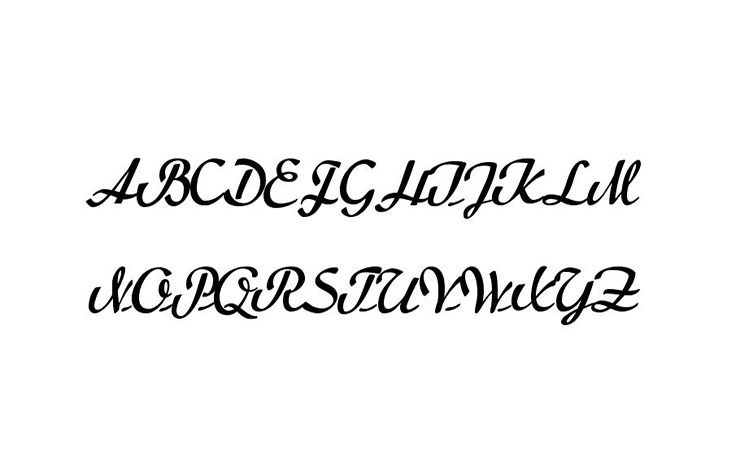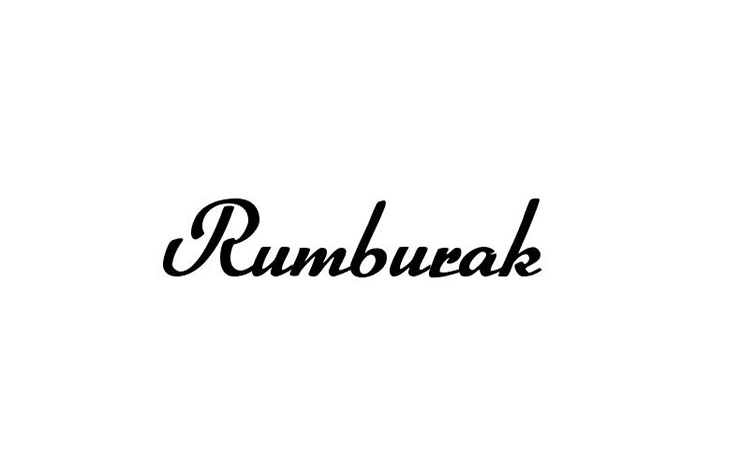
Rumburak Font is a script brush typeface designed by Peter Weigel. It has a unique and expressive design that mimics the look of a handwritten script.
The font comes in a single style, which makes it easy to use without the need for different variations. And this style contains 230 glyphs and 62 binary stored kerning pairs.
Because of his artistic and playful style. The brush strokes used in the design create a sense of movement and fluidity, giving the font a sense of energy and liveliness.
This makes it the perfect choice for designs that require a personal touch, such as invitations, social media posters, headers, titles, greeting cards, and other creative projects.
The letters are clear and easy to read, making them suitable for use in both body text and headings. This makes it a practical choice for designers who want to add a touch of personality to their designs without sacrificing legibility.
You can use this brush font for different purposes. Like designing a brand logo, poster or cover layout, brochure or wedding, invitation card designs, designing wedding cards, invitations, flyers, banners, titles, brochures, social media posters, and many more.